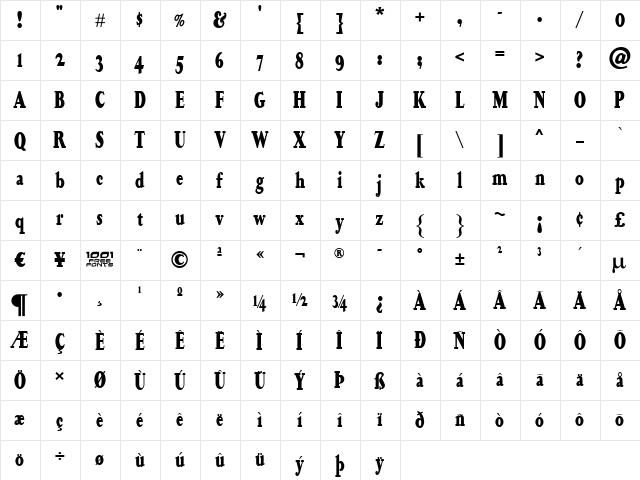
Happy Campers NF Regular
| Foundry | Nick's Fonts |
| Designer | Nick Curtis |
Design Context for Happy Campers NF Typeface
Happy Campers NF is a composed and adaptable typeface that performs quietly and consistently across a wide range of design contexts.